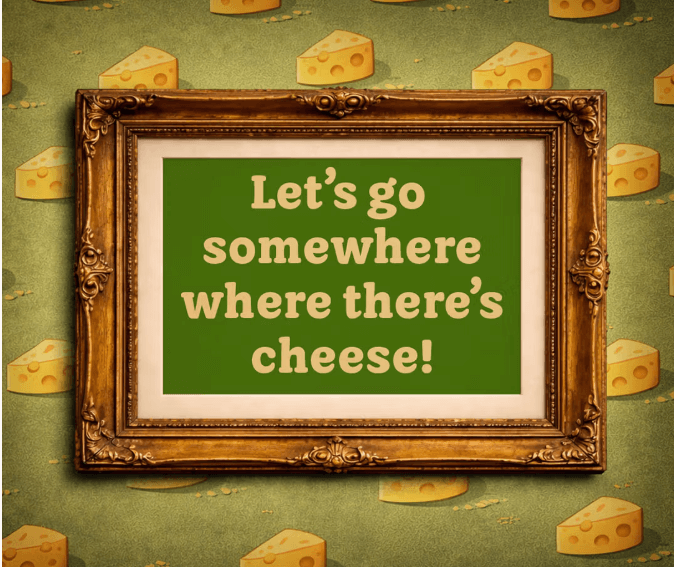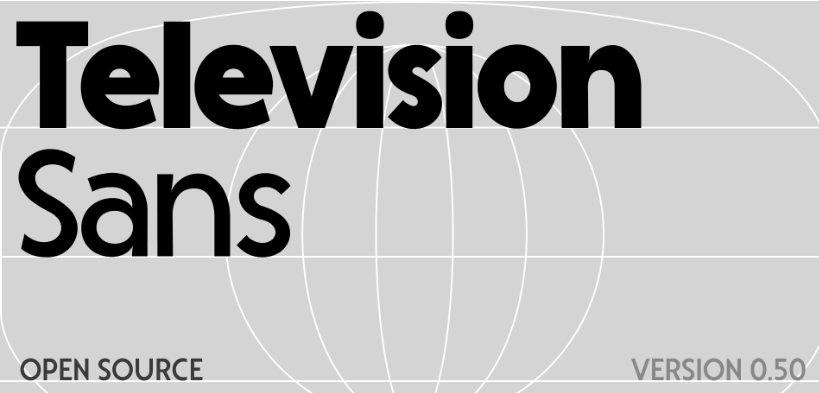
This month’s font is by a friend of Font Love Friday – type designer Jamie Clarke.
Jamie created the bespoke font for the iconic British animated duo Wallace & Gromit for Aardman Studios. And we know who’s famously, obsessively devoted to cheese in the show!
The font is called Buttered Crumpet and it oozes warmth with hand-crafted serifs shaped like little loaves of bread. Cosy British perfection.
It's a bespoke commission so you can't buy it. But the case study is a lovely read here and it fits along nicely alongside the Designery Things section below, where the Aardman story continues...
Television Sans by Sami Mularczyk
A free variable geometric sans-serif inspired by newsprint ads from the 1980s. Friendly, a little retro and already very usable even though it's still a work in progress. More here.